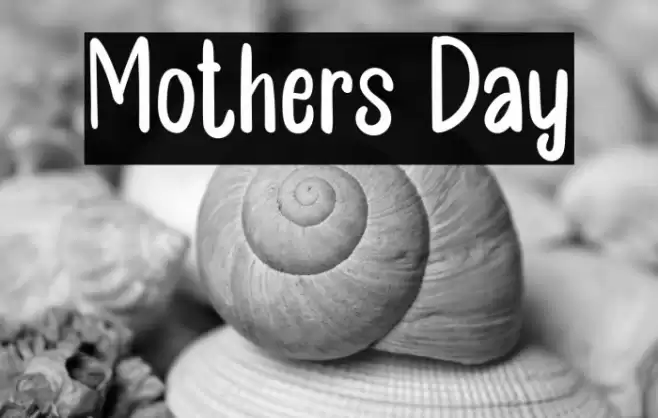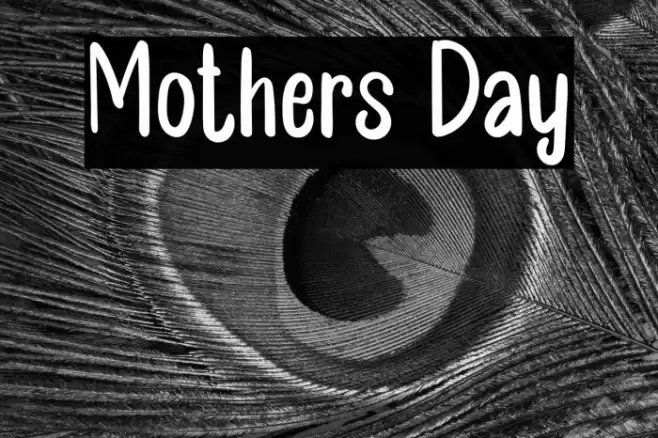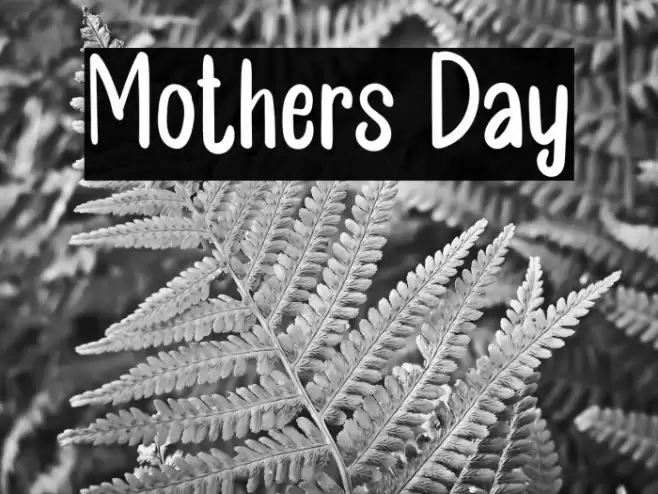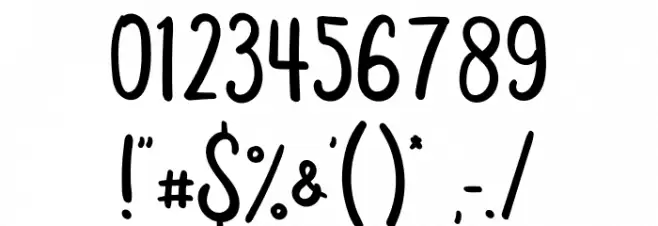
Mothers Day Font
Mothers Day Description
This playful and whimsical font features rounded, smooth edges and a hand-drawn aesthetic. The characters are slightly irregular, giving it a friendly and approachable feel. The uppercase letters are bold and prominent, while the lowercase letters maintain a consistent style with a slightly more relaxed appearance. The numbers and special characters are designed to match the overall playful theme, making it suitable for casual and creative projects. The font's informal style is perfect for designs that aim to convey warmth and friendliness.
A playful, hand-drawn font with rounded edges and a whimsical style from Regular fonts.
- Proposed Projects: Ideal for greeting cards, children's books, playful branding, and casual invitations.
- Overall Style: Playful
- Use Case: Headlines, Logos, Casual Text